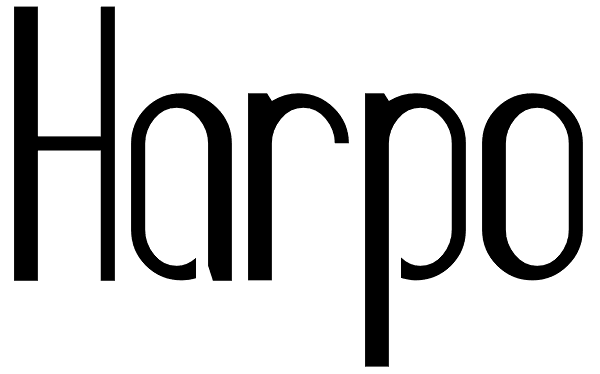
Harpo
Harpo is a naturally condensed font, better at large sizes. Harpo Wide is a more versatile version of the same font. Part of The Algonquin Collection, Harpo was named for occasional Round Table member, Harpo Marx. Light, narrow and discreet this...
Harpo
Harpo Wide